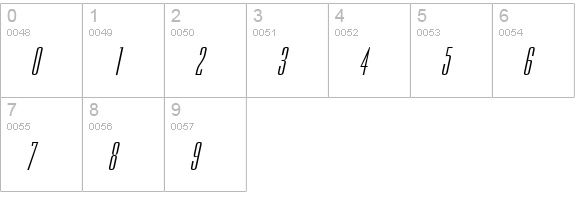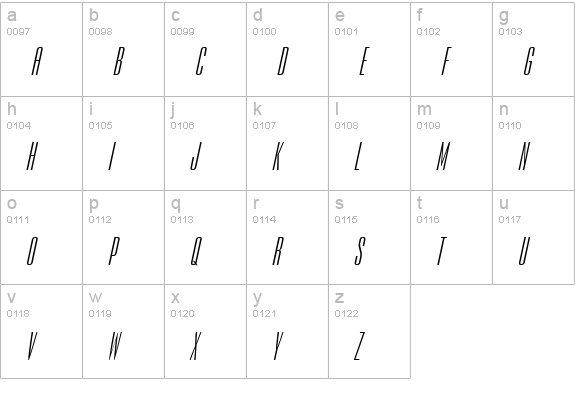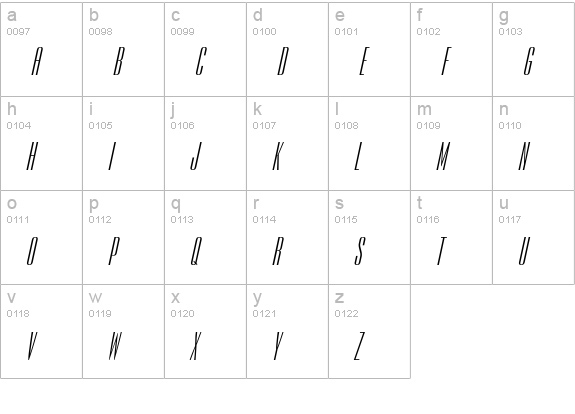
Expel Italic is a distinctive, italic variant in the Expel typeface family \xE2\x80\x94 well suited to design and typography projects.
Expel Italic font is a modern and stylish typeface that exudes elegance and sophistication. Its sleek and flowing design makes it perfect for adding a touch of class to any project. The italic style of the font adds a sense of dynamism and movement, making it ideal for use in headings, titles, and other prominent text elements. What sets Expel Italic font apart is not just its striking appearance, but also the fact that it is available for free download at FontsMarket.com. This means that you can easily access this high-quality font without having to worry about any costs. Whether you're a designer looking to enhance your projects or an individual looking to add a touch of flair to your documents, Expel Italic font is the perfect choice. Download it today and elevate your designs with this exquisite typeface.